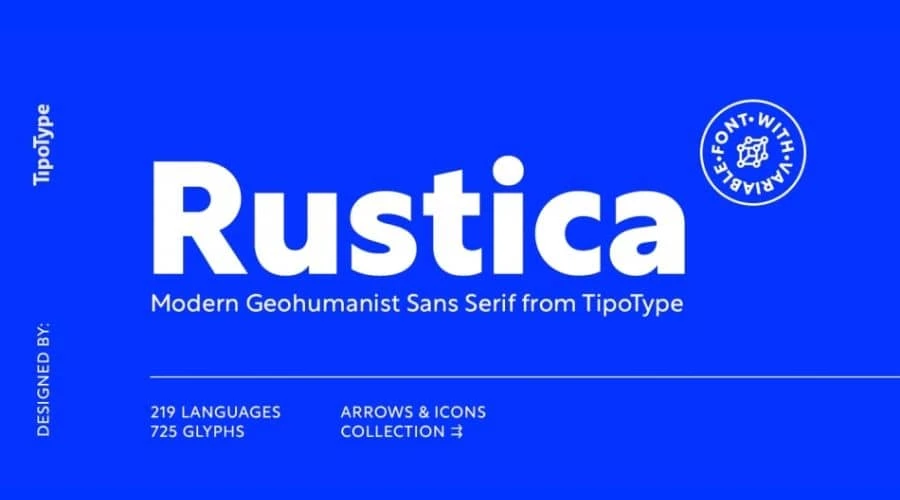
Rustica font is a sans-serif typeface family that was made by Martin Sommaruga, Fernando Daz, and Vicente Lamónaca, among other people. This typeface comes in twenty different styles and was made by TipoType. In type design, we look back at our history so that we can start again on our way to the future with new strengths. Rustica is based on humanist architecture, but it also has the determination and precision of the geometry of the classic sans of the early 20th century added to it, making it look more modern. Download Rustica Font Free now.